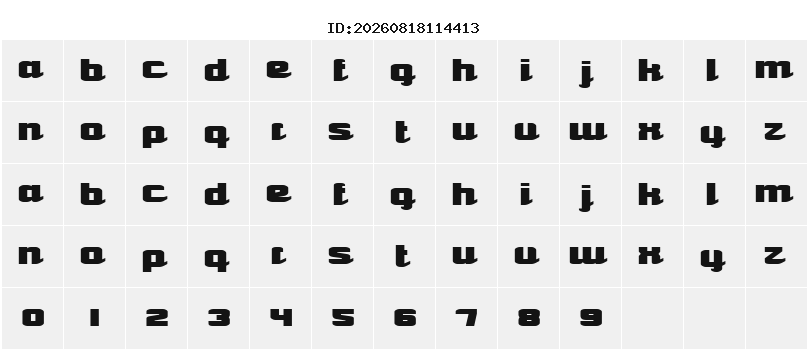
SnoCone Preview
• Font Name: SnoCone
• Font ID: Macromedia Fontographer 4.1.4 SnoCone
• Full Font Name: SnoCone
• Version: Macromedia Fontographer 4.1.4 8/17/04
• PostScript Name: SnoCone
• Character Count: 187
About SnoCone.ttf
SnoCone.ttf is a modern, elegant sans-serif font designed for ultimate readability and visual harmony. Perfect for branding, headlines, web design, and print materials.